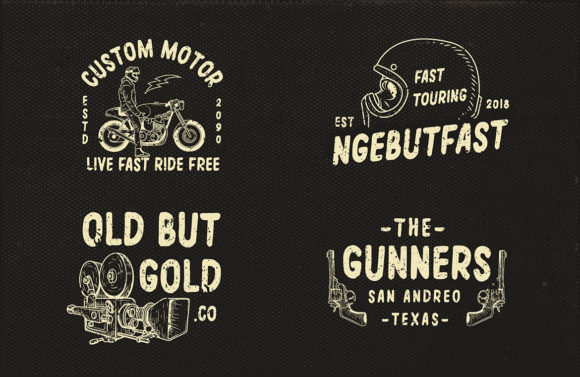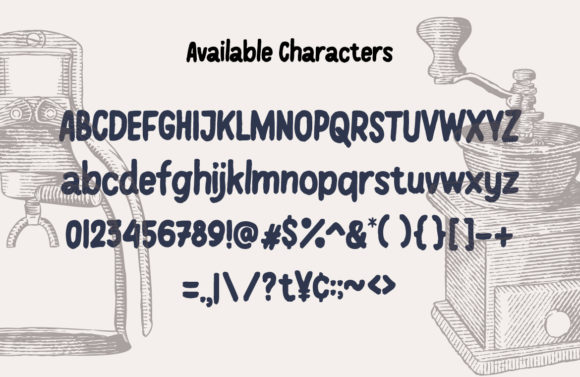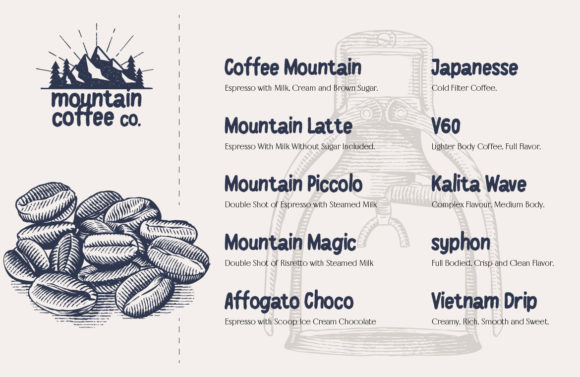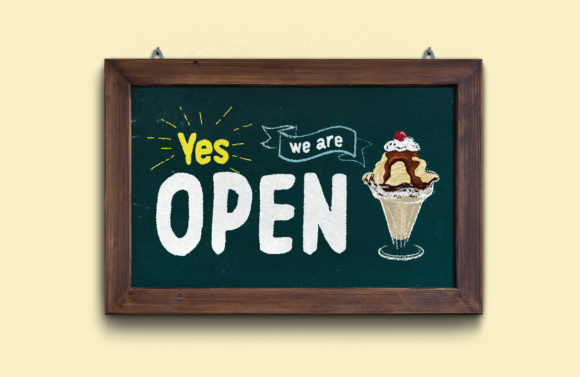
Cuprea Font: The Perfect Addition to Your Design Arsenal
In the world of typography, fonts play a crucial role in conveying the tone and personality of a design. For crafty designers and DIY enthusiasts, finding the right font can make all the difference in bringing their creative vision to life. This is where Cuprea Font comes in – a fun, trendy, and paint-brushed display font that’s sure to elevate your designs to the next level.
What is Cuprea Font?
Cuprea Font is a unique and original display font that boasts a distinctive, hand-painted look. Its rustic charm and organic feel make it an excellent choice for a wide range of design projects, from letterheads and titles to stationery and more. With its bold, expressive strokes, Cuprea Font adds a touch of personality and whimsy to any design, making it perfect for crafty ideas and creative projects.
Key Features of Cuprea Font
- Fun and Trendy: Cuprea Font’s modern, edgy look makes it perfect for designers who want to add a touch of sophistication and style to their work.
- Paint-Brushed Texture: The font’s paint-brushed texture gives it a unique, organic feel that’s reminiscent of hand-painted signs and artwork.
- Display Font: Cuprea Font is designed specifically for display purposes, making it ideal for headlines, titles, and other prominent design elements.
- Crafty and Versatile: With its rustic charm and playful personality, Cuprea Font is perfect for a wide range of crafty projects, from DIY stationery to handmade crafts.
Uses for Cuprea Font
Cuprea Font’s versatility and unique personality make it suitable for a variety of design projects, including:
- Letterheads and Stationery: Add a touch of personality to your business correspondence with Cuprea Font’s bold, expressive strokes.
- Titles and Headlines: Make a statement with Cuprea Font’s eye-catching design, perfect for magazine covers, posters, and more.
- DIY Crafts: Bring your handmade crafts to life with Cuprea Font’s rustic charm and organic feel.
- Branding and Packaging: Use Cuprea Font to add a touch of whimsy and personality to your brand’s packaging and marketing materials.
Why Choose Cuprea Font?
With so many fonts available, why choose Cuprea Font for your design projects? Here are just a few reasons:
- Unique and Original: Cuprea Font’s distinctive, hand-painted look sets it apart from more traditional fonts.
- Easy to Read: Despite its bold, expressive strokes, Cuprea Font remains easy to read, making it perfect for display purposes.
- Highly Versatile: Cuprea Font’s rustic charm and playful personality make it suitable for a wide range of design projects.
In conclusion, Cuprea Font is a fun, trendy, and paint-brushed display font that’s perfect for crafty designers and DIY enthusiasts. With its unique, hand-painted look and bold, expressive strokes, Cuprea Font adds a touch of personality and whimsy to any design. Whether you’re working on a letterhead, title, or DIY craft, Cuprea Font is sure to elevate your design to the next level. So why not give it a try and see the difference it can make in your design work?